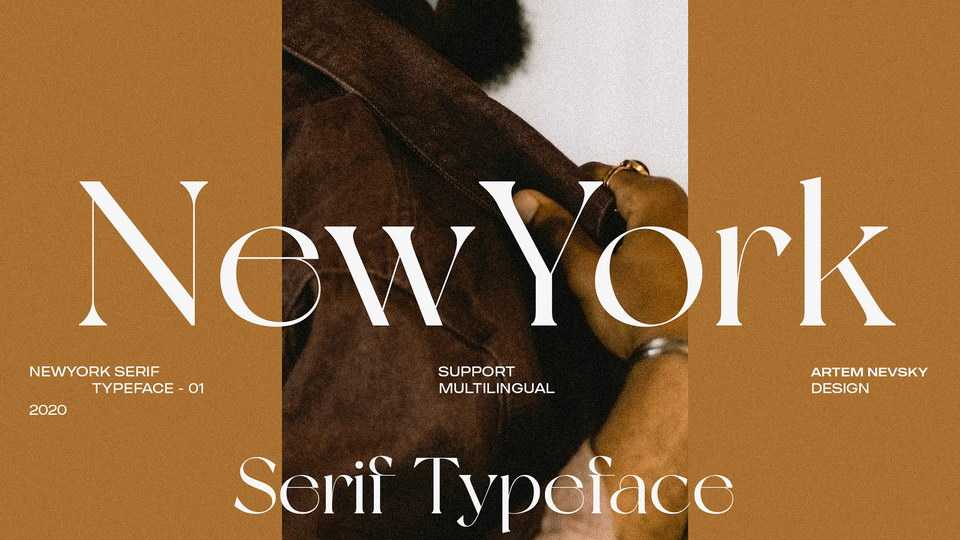
Download NewYork font, a modern contrast display serif typeface. NewYork is best for fashion, magazines, logos and branding, social media and other artworks.
Designer: Artem Nevsky